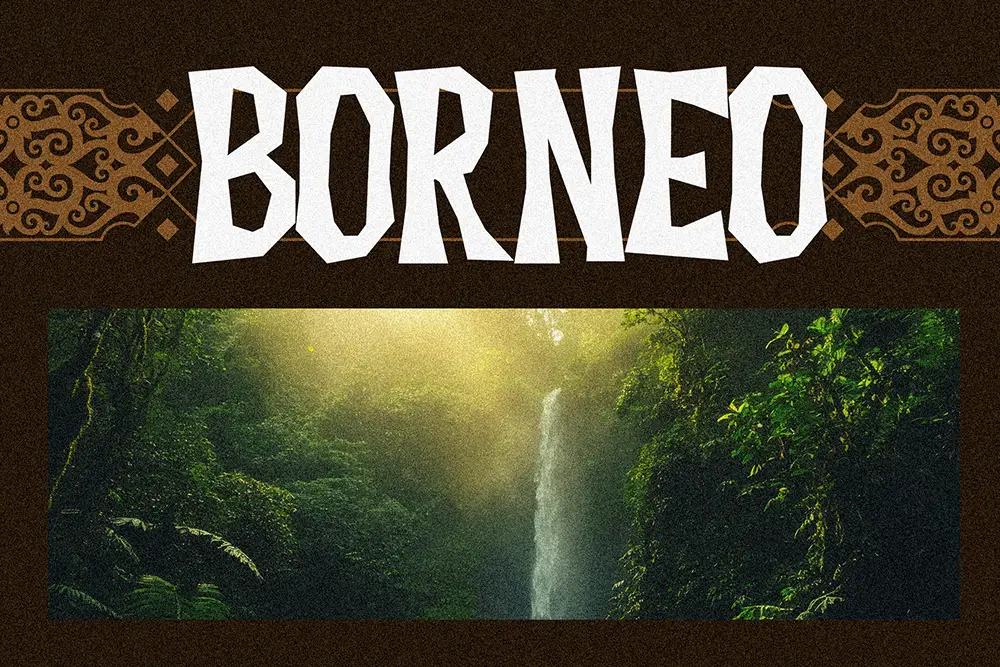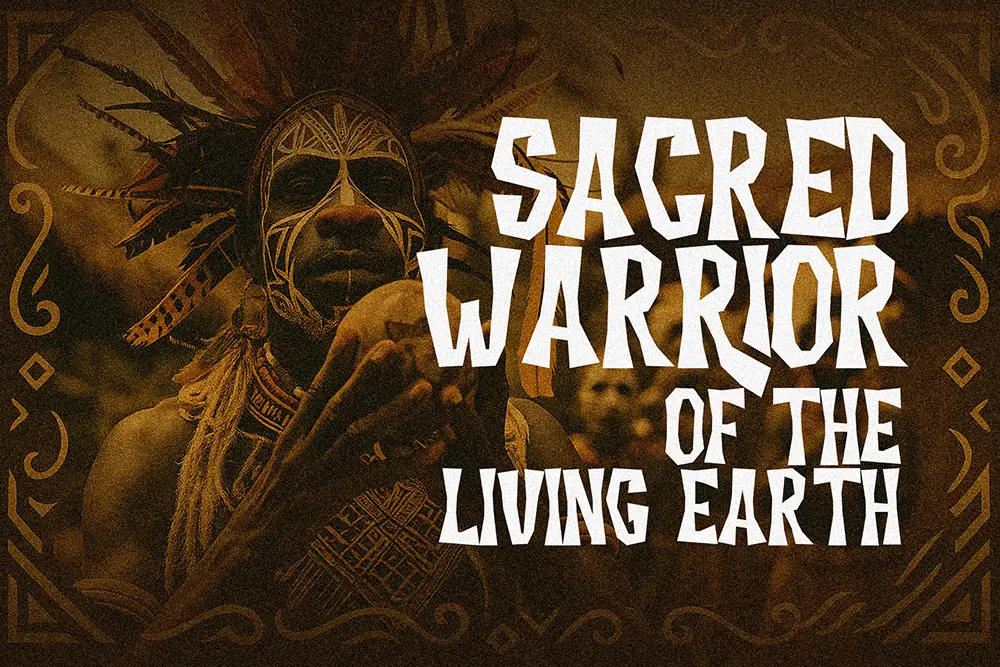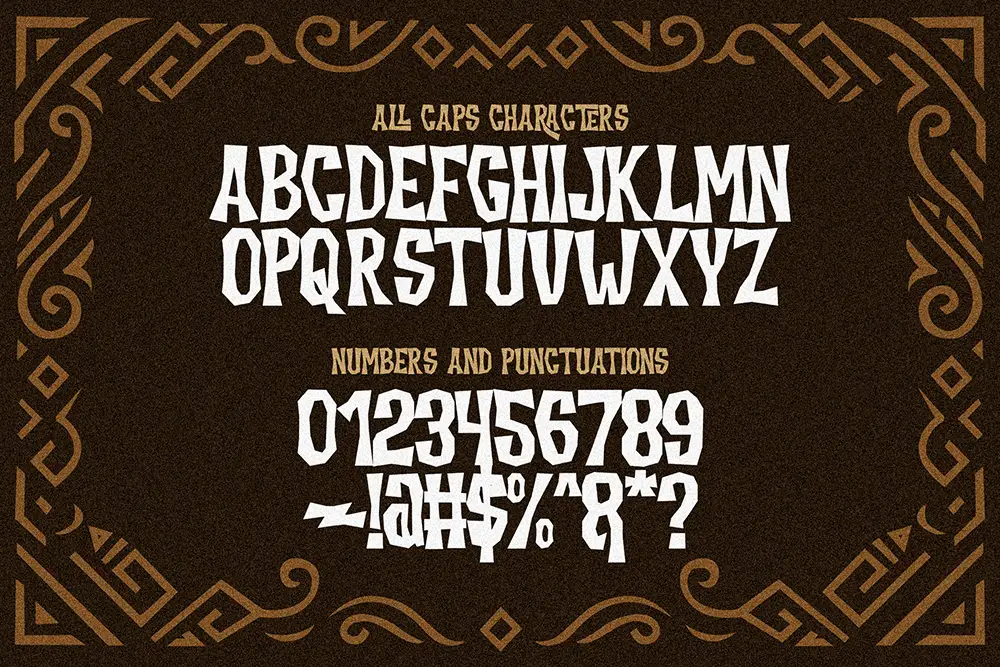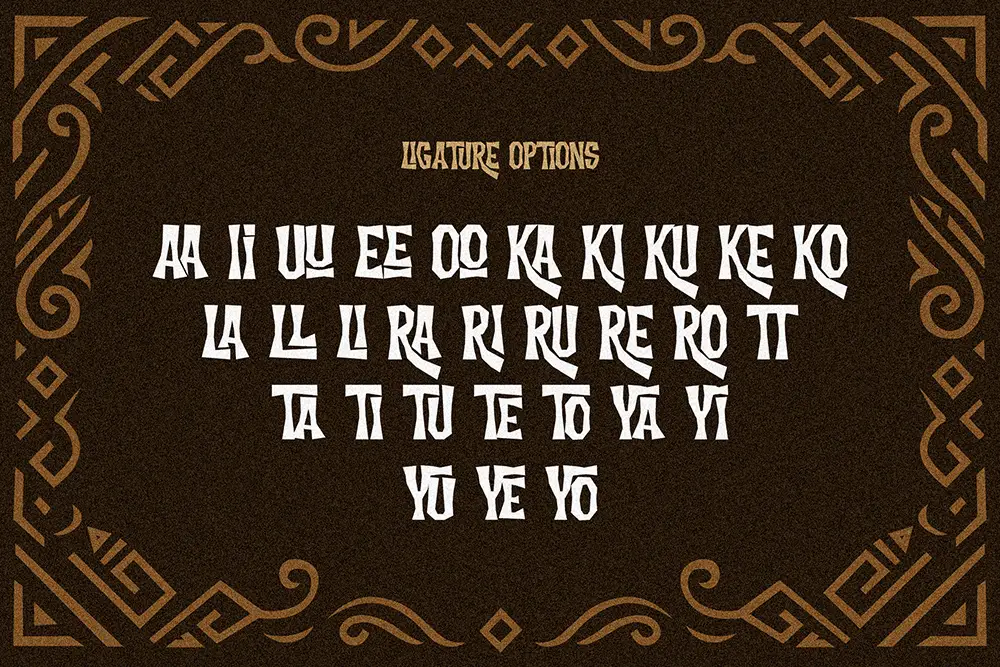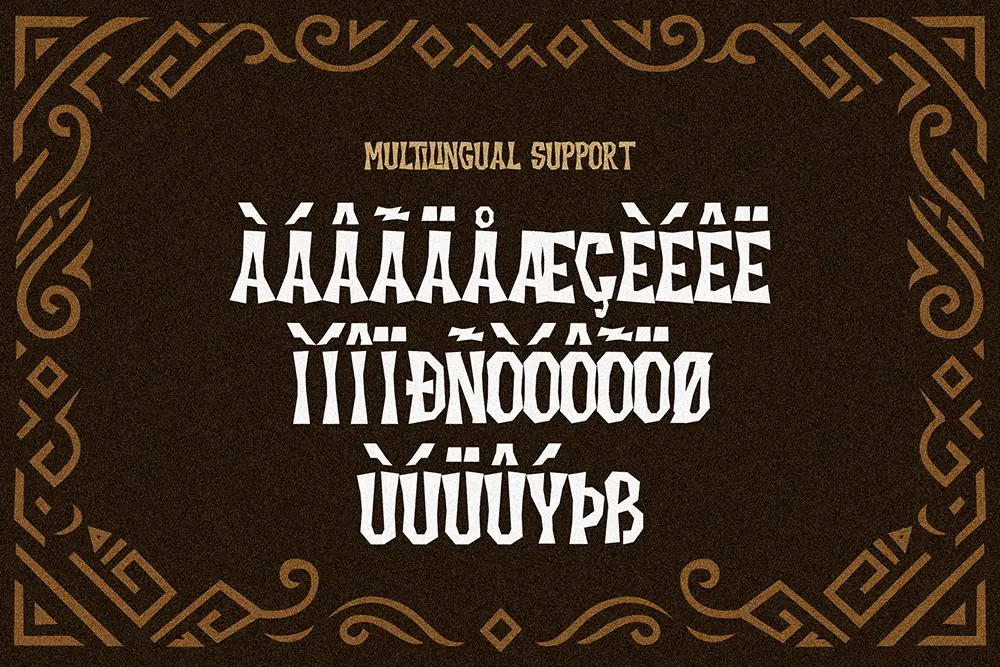
Tribal Broots
Tribal Broots – Sacred Display Font for Bold and Tribal-Inspired Design
Typography has the power to tell stories beyond words. Tribal Broots – Sacred Display Font is crafted for projects that demand impact, mystery, and cultural richness. Inspired by sacred symbols and tribal artistry, this font is more than just letters—it’s a visual identity. Its bold strokes, intricate ligatures, and allcaps style make it the perfect sacred display font for logos, posters, branding, and creative designs that require a spiritual or tribal atmosphere.
From modern marketing to ancient-inspired visuals, Tribal Broots delivers the balance of contemporary usability and timeless symbolism. Designers seeking a unique sacred display font will find it an invaluable addition to their creative toolkit.
Sacred Display Font with Tribal Power
What sets Tribal Broots apart from ordinary fonts is its ability to convey power and spirituality in every character. As a sacred display font, it features sharp geometry and handcrafted ligatures that mimic tribal patterns. The allcaps design gives it strength and uniformity, while the cultural inspiration behind each stroke adds authenticity and soul.
This makes Tribal Broots the ideal choice for projects that need to feel strong, artistic, and meaningful—from branding campaigns to ceremonial posters.
Key Features of Tribal Broots – Sacred Display Font
To give you a clear picture of what makes Tribal Broots special, here are its standout features:
• Allcaps Design: Strong and impactful typography for titles and logos
• Unique Ligatures: Tribal-inspired ligatures that add authenticity
• Multilingual Support: Extended Latin characters for global use
• Display Strength: Perfect for posters, branding, and creative campaigns
• Cultural Inspiration: A sacred aesthetic that blends modern with traditional
Why Designers Love Tribal Broots
Designers gravitate toward Tribal Broots because it’s not just a font—it’s an expression. Its sacred display font style makes it stand out in ways that other typefaces can’t.
Here’s why creatives love it:
• Unique Identity: Perfect for brands that want to stand apart with cultural or spiritual themes
• Versatility: Great for posters, event branding, and merchandise designs
• Professional Quality: Smooth kerning, well-crafted ligatures, and polished execution
• Memorable Impact: Instantly recognizable in any creative project
Tribal Broots in Branding and Logos
Logos are the voice of a brand, and Tribal Broots ensures your voice is strong, unique, and unforgettable. This sacred display font is perfect for companies, agencies, and organizations that want to align themselves with cultural depth, spirituality, or bold tribal aesthetics. Its allcaps format reinforces brand authority, while its ligatures add a creative flourish.
Tribal Broots in Posters and Advertising
Posters need attention, and Tribal Broots guarantees it. As a sacred display font, its extended letters and bold strokes make event graphics, ceremonial posters, or music festival flyers impossible to ignore. The ligatures create artistic variation, adding uniqueness to every project.
If you want your message to not only be read but also felt, Tribal Broots is the font to use.
Tribal Broots in Creative Media
Beyond branding and posters, Tribal Broots thrives in digital media, packaging, and even editorial design. Its sacred display font style adds cultural storytelling to Instagram quotes, YouTube titles, and Pinterest graphics. For designers working on spiritual or cultural campaigns, Tribal Broots is a must-have.
• Character Set: Allcaps with Unique Ligatures, Numbers, Punctuation
• Category: Sacred Display Font
• Best Uses: Logos, Posters, Branding, Advertising, Packaging, Creative Media
Why Tribal Broots is the Sacred Display Font You Need
Typography is evolving, and so are the needs of designers. Tribal Broots offers more than letters—it delivers stories. As a sacred display font, it captures tribal artistry and transforms it into modern design language. Whether for branding, posters, or spiritual campaigns, it’s a typeface that connects tradition with creativity.
Tribal Broots – Sacred Display Font is for those who want more than just a font. It’s for designers who want to create experiences, not just visuals. With its allcaps design, unique ligatures, and multilingual support, it is versatile, professional, and packed with creative energy.